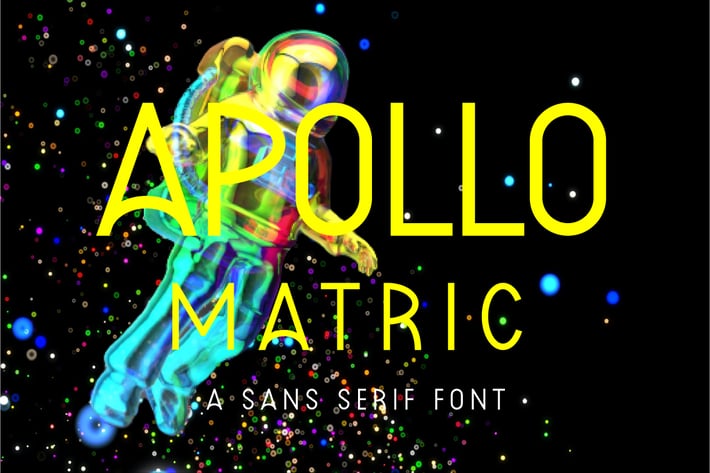
Apollo Matric - Sans Serif Font
Introducing Apollo Matric, a simple and casual sans serif font.
So perfect for you who needs a typeface for logo designs, magazine, social media, brochure, and many more.